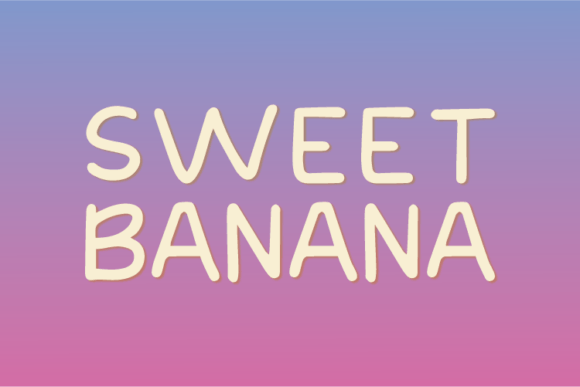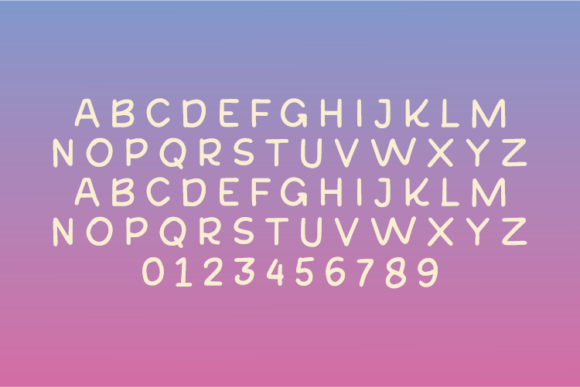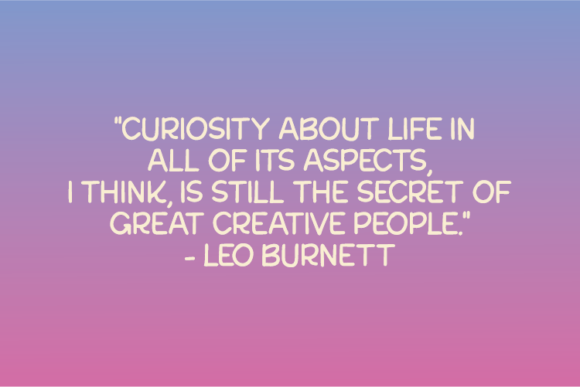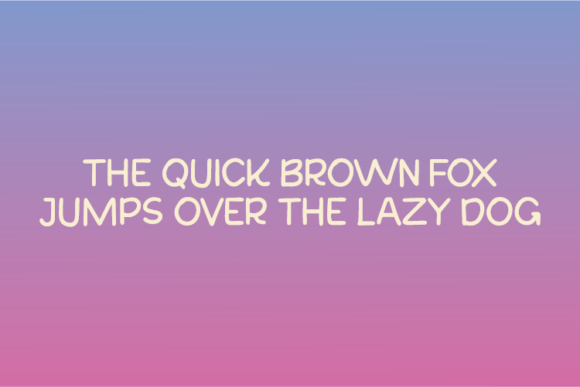
Sweet Banana Font
About Sweet Banana Font
Sweet Banana is a delightful all-caps handwritten font that exudes a natural, interesting, and unique charm. Its organic and playful style makes it a perfect choice for various creative applications, including quotes, notes, T-shirts, and much more. By adding Sweet Banana to your fonts library, you’re incorporating a versatile and eye-catching typeface that has the potential to enhance all your designs.
The natural flow and handcrafted appeal of Sweet Banana bring a sense of authenticity to your projects. Whether you’re designing inspirational quotes that resonate with your audience or creating casual and fun T-shirt designs, this font adds a touch of warmth and character to your text, making it engaging and visually appealing.
Sweet Banana’s all-caps format provides a consistent and cohesive look, ensuring that your designs maintain a unified aesthetic. Its friendly and approachable style makes it suitable for a wide range of creative endeavors, allowing you to experiment with different layouts and color schemes to create visually striking compositions.
Incorporating Sweet Banana into your designs allows you to infuse a sense of playfulness and creativity. Its uniqueness sets your text apart, making it memorable and eye-catching. Whether you’re crafting social media posts, greeting cards, or promotional materials, Sweet Banana adds a delightful touch that captures attention and leaves a lasting impression.